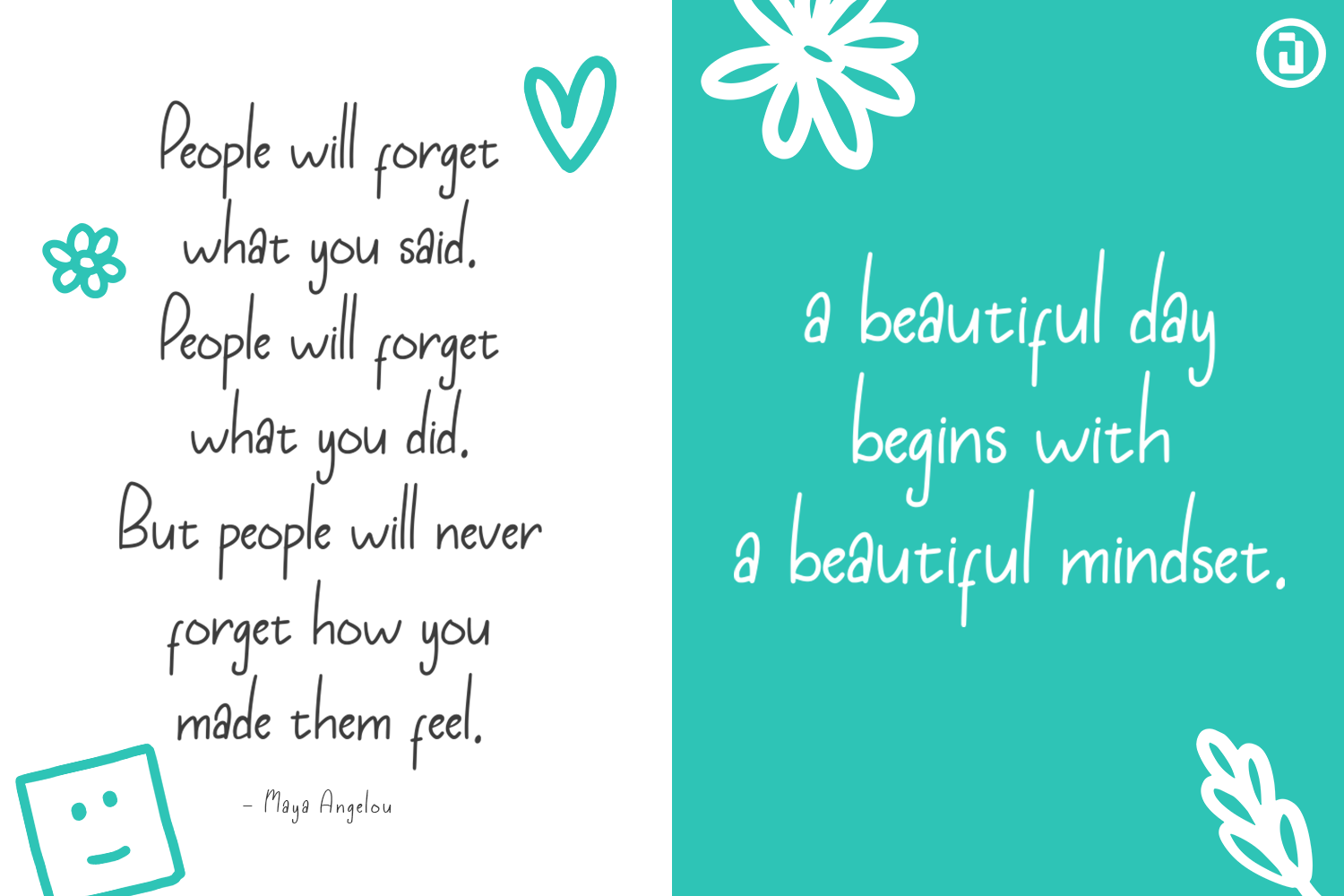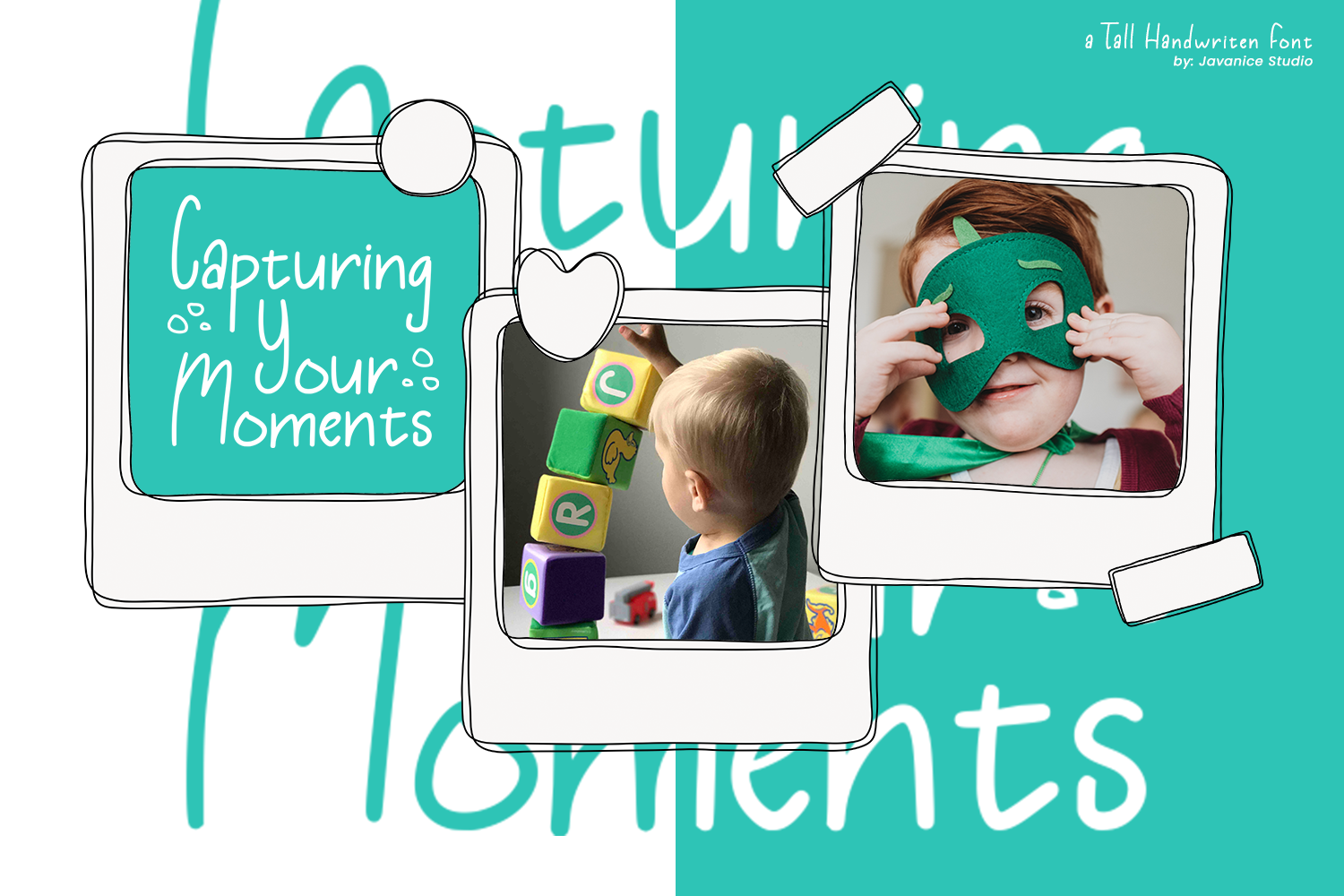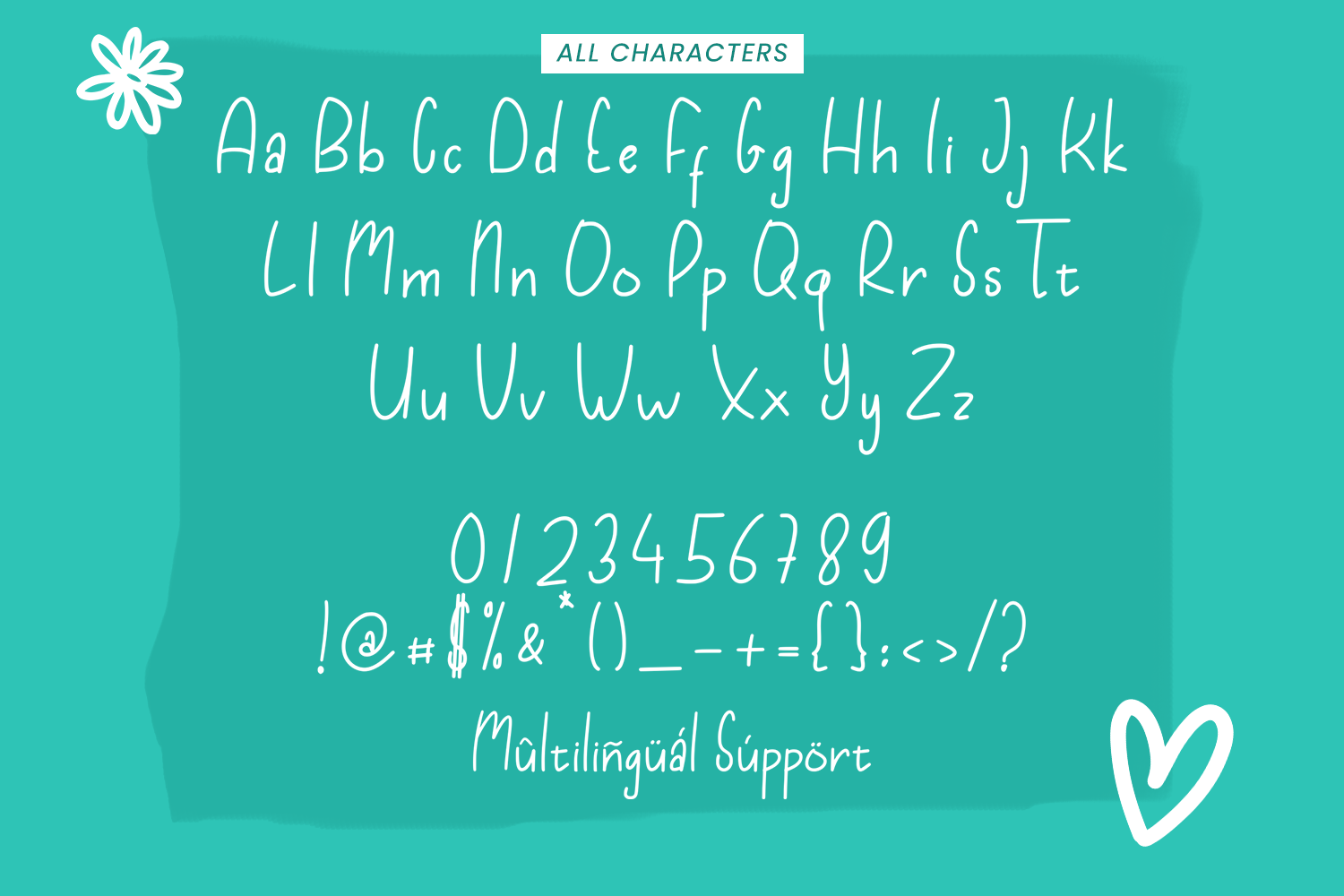
Buckey Petty Font
Buckey Petty Handwritten Font
This is a handwritten font. Buckey Petty is perfect for branding project, apparel, labels, magazines, books, greeting / wedding cards, packaging, fashion, make up, stationery, and any type of advertising purpose or just used to express words above the background.